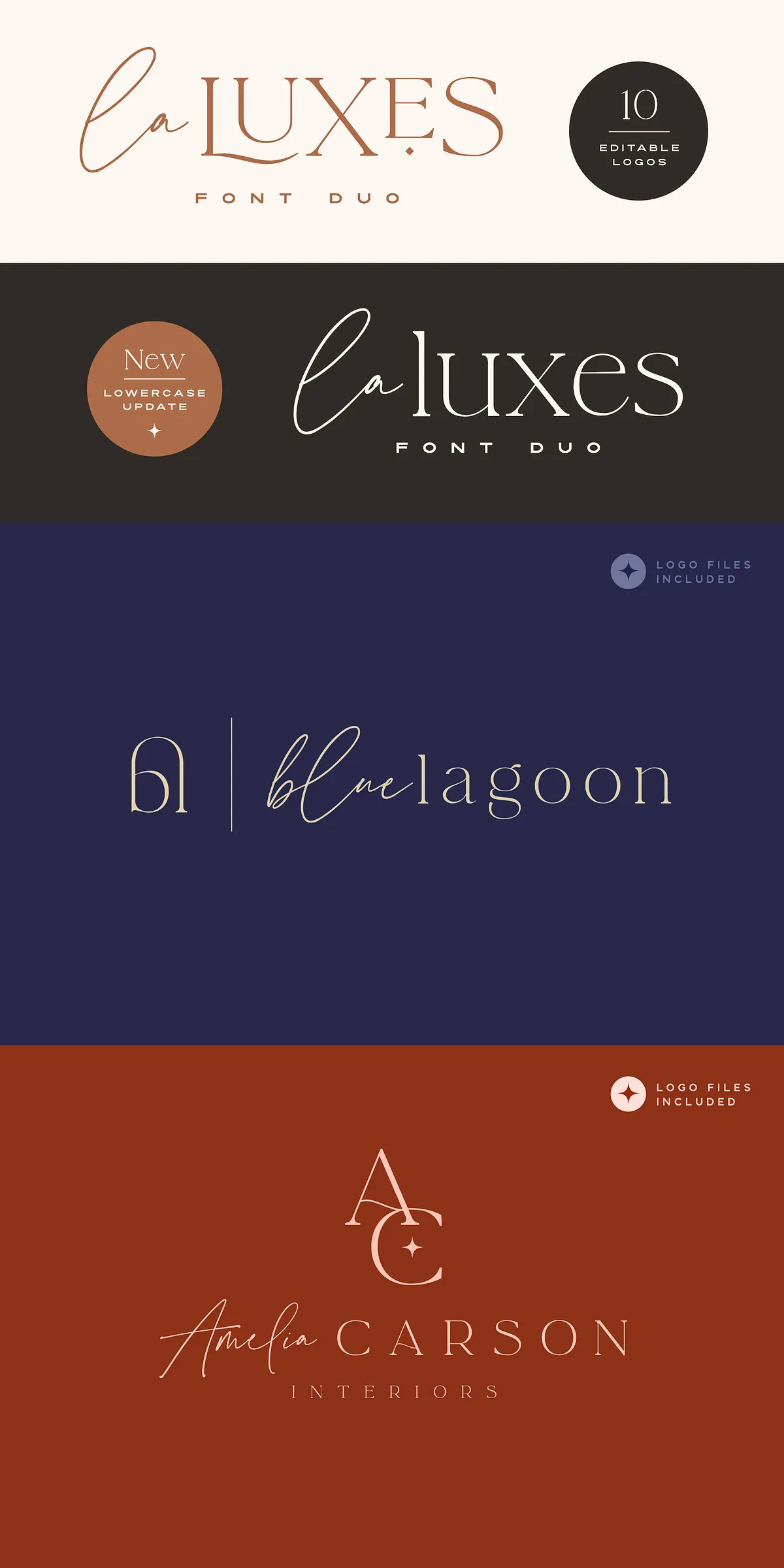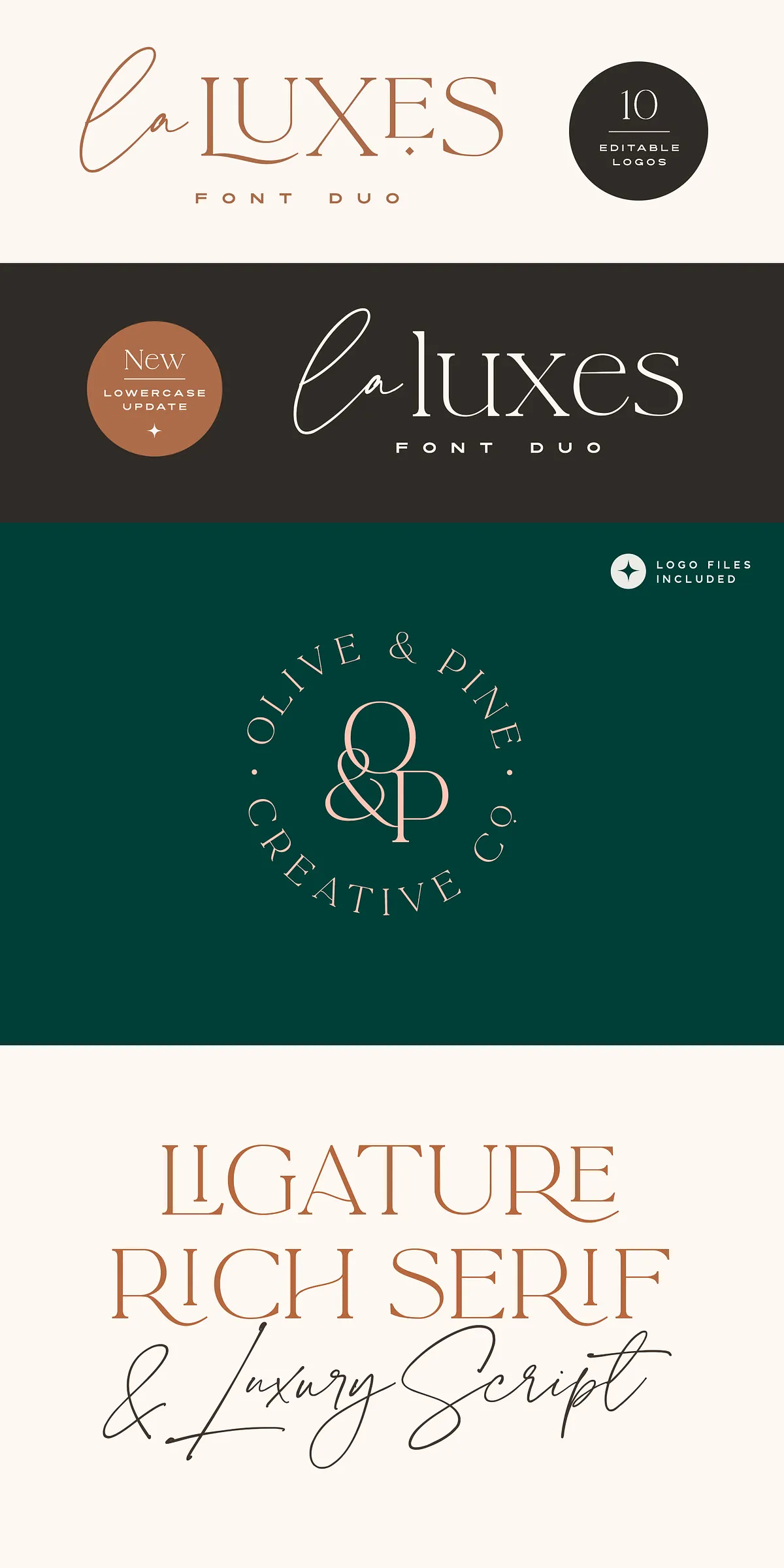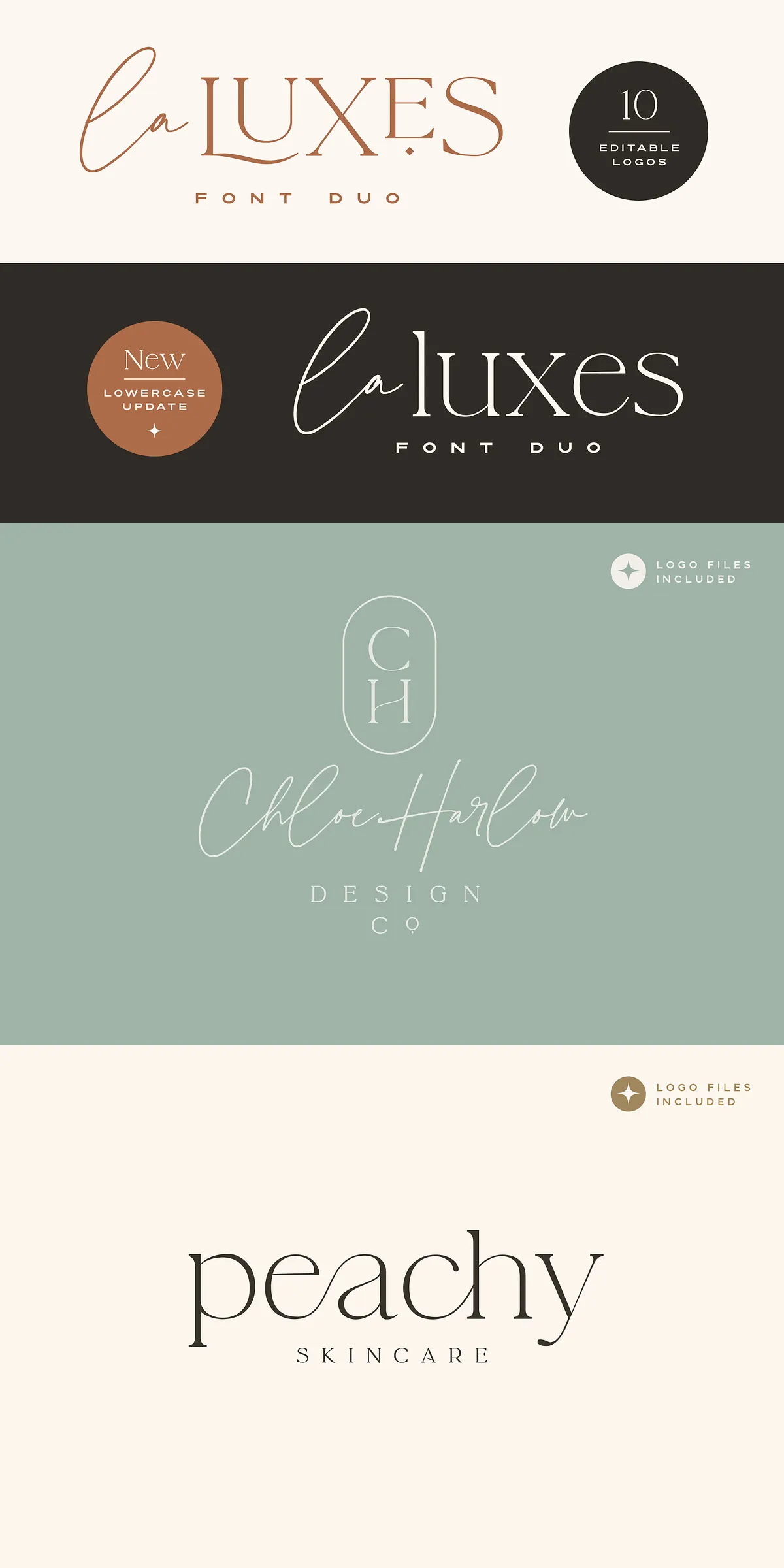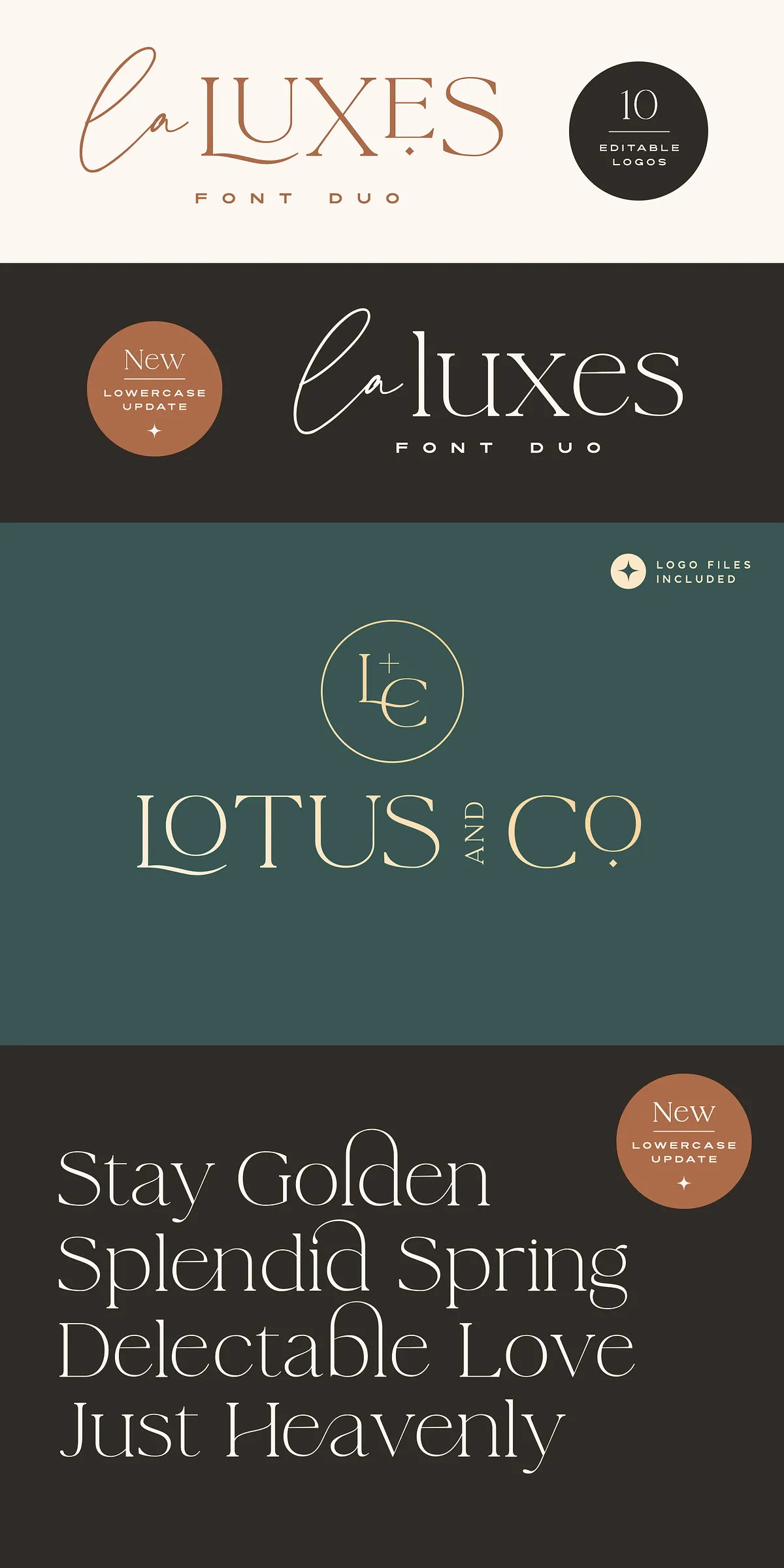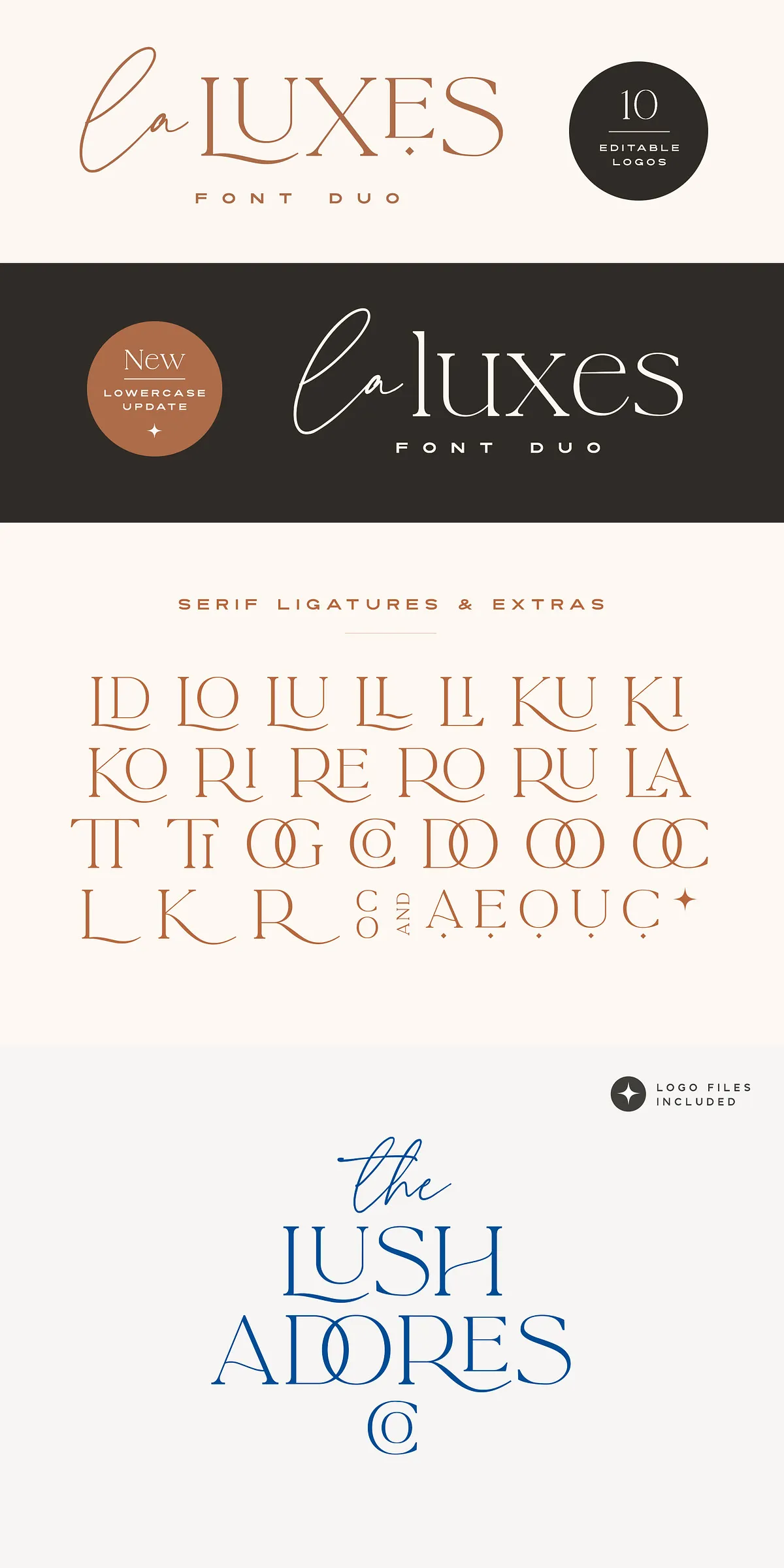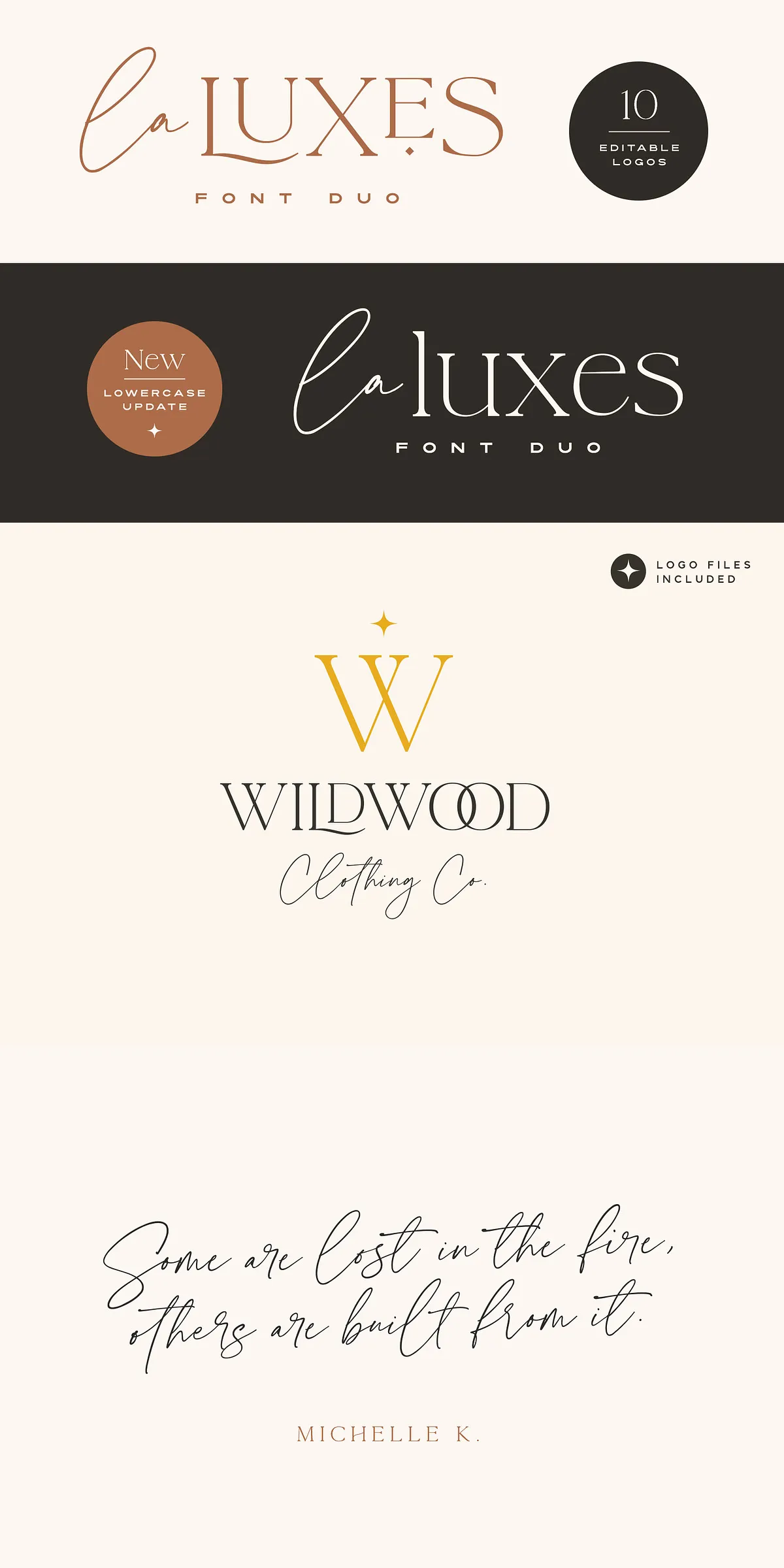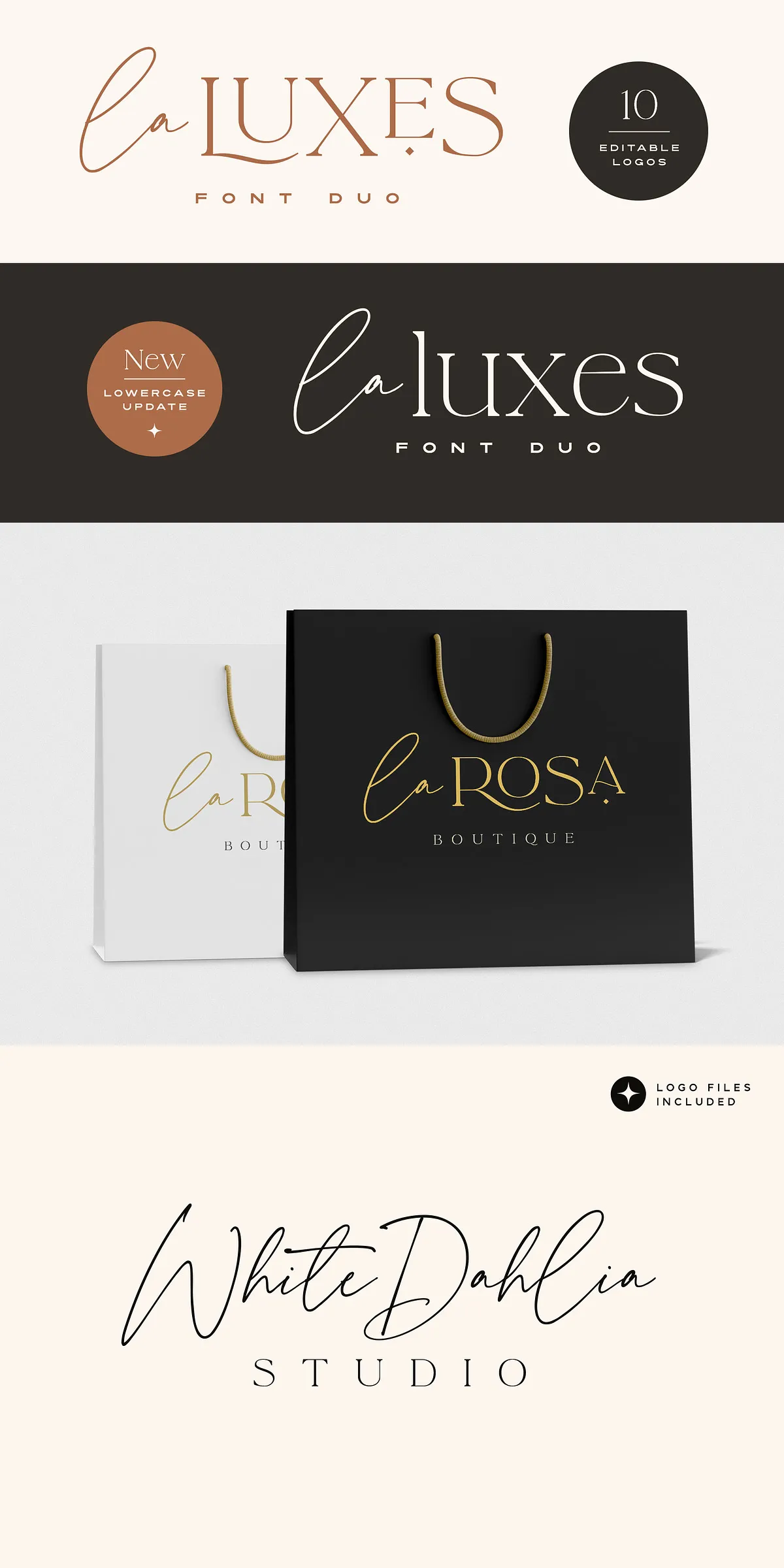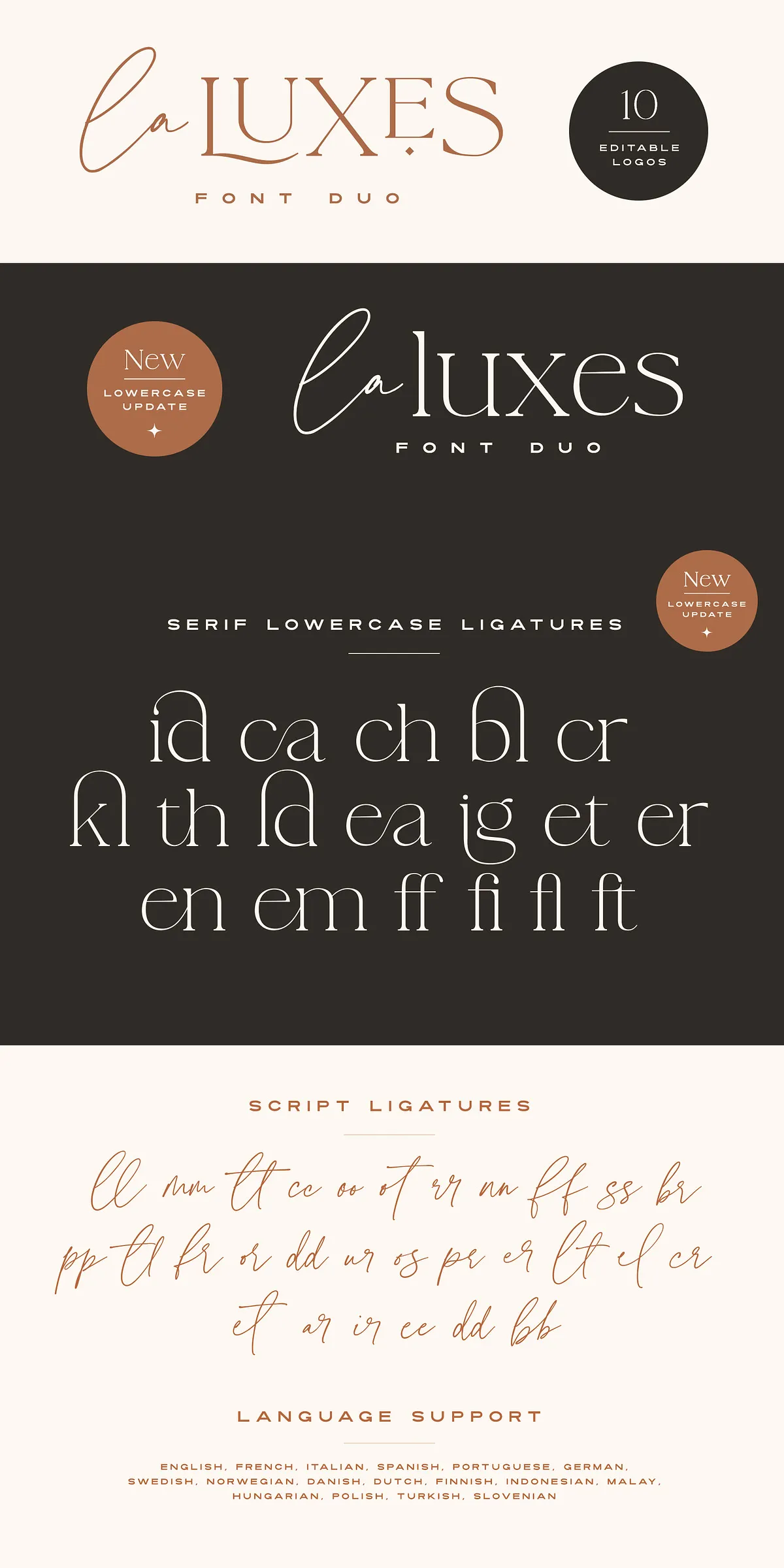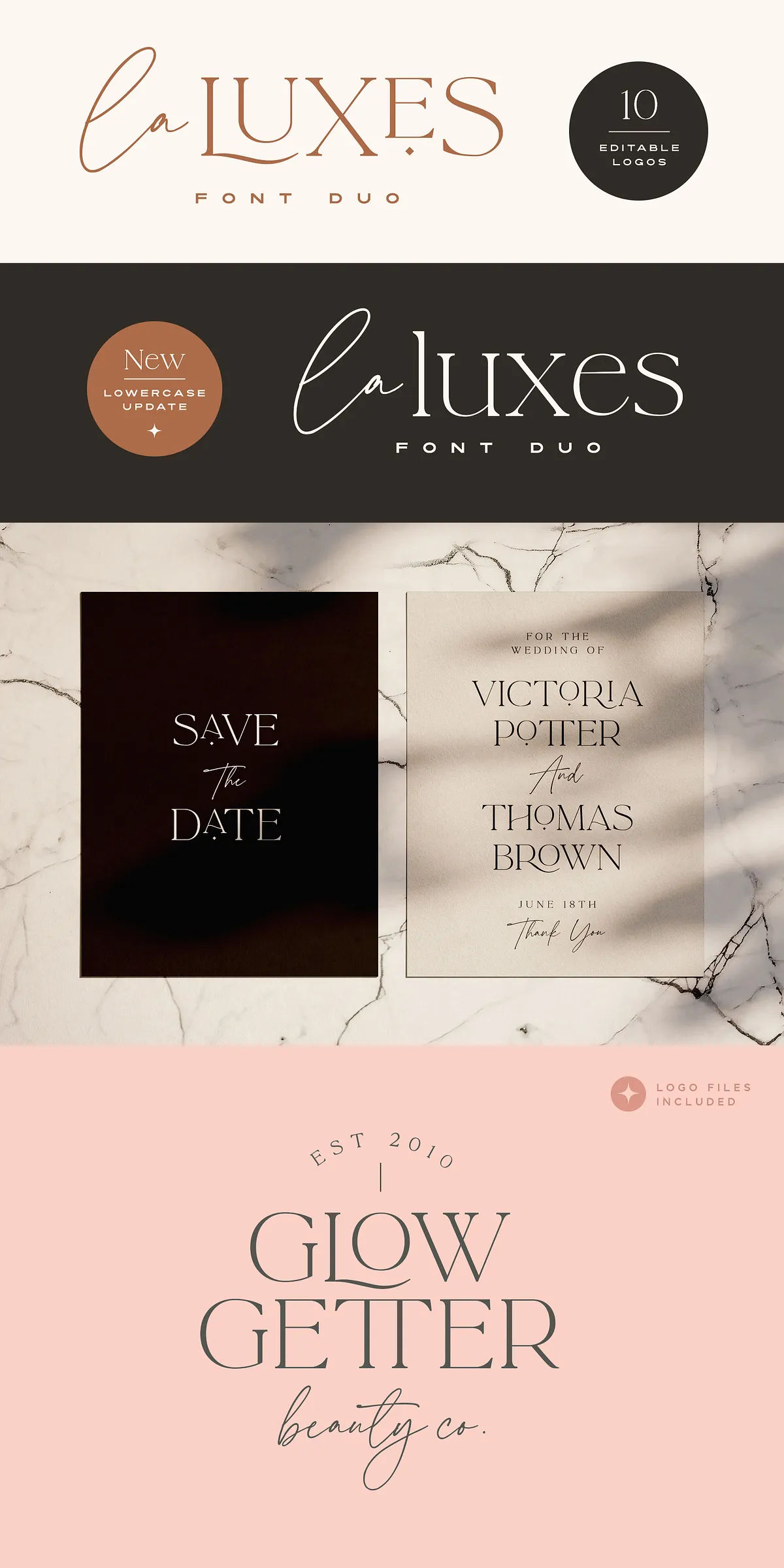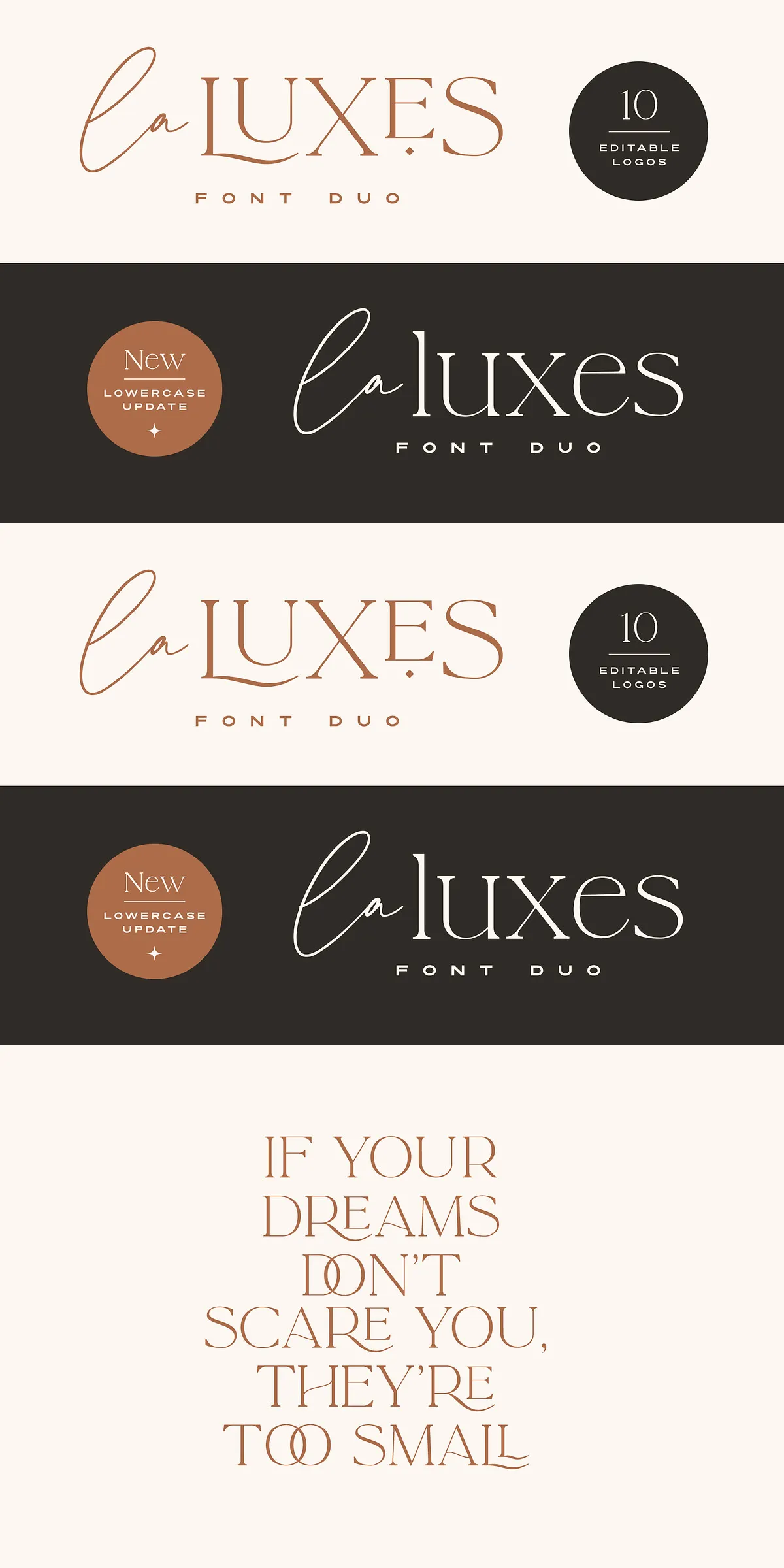
Step into the world of refined elegance with La Luxes — a meticulously crafted font duo that fuses the graceful flow of a hand-drawn script with the timeless sophistication of a ligature-rich serif. Perfect for high-end branding, editorial layouts, and luxury product design, La Luxes delivers a premium typographic experience that commands attention and exudes sophistication.
Masterfully Crafted Duo: Script + Serif for Maximum Impact
La Luxes isn’t just a pair of fonts — it’s a complete typographic ecosystem built for professionals who demand excellence. Each font is engineered with precision to work in harmony, creating seamless visual rhythm across your projects.
La Luxes Script: Elegant, Fluid, and Fully Customizable
This clean, hand-drawn script brings a sense of personal touch and artistry to every word. Featuring full uppercase and lowercase characters, punctuation, numerals, and an impressive set of 30 ligatures, the script flows naturally, reducing awkward spacing and enhancing readability while maintaining a custom, artisanal feel. Whether used in luxury logos, wedding invitations, or high-fashion branding, the script adds a refined, human touch that no mechanical font can replicate.
La Luxes Serif: Modern, Stylish, and Rich in Detail
Complementing the script perfectly, the La Luxes Serif is a powerful all-caps serif that redefines modern elegance. It includes both uppercase and new lowercase characters, ensuring versatile use across headings, body text, and display settings. With 38 ligatures and 11 unique special characters, including stylized ‘AND’ and ‘CO’ icons, this serif gives you endless layout options for premium brand identities and editorial design.
10 Premium Logo Templates — Design in Minutes
Accessing Advanced Features with Ease
- Stylistic Alternates: Activate this feature to access raised small caps (A, E, O, U, C) and elongated tail variants (L, K, R,). These subtle details elevate the visual hierarchy and add depth to your design.
- Special Characters: The star icon (
*) and stylized ‘AND’/‘CO’ symbols are only accessible via the Glyphs panel — perfect for luxury branding where symbolism matters.
This makes La Luxes ideal for brands expanding globally, agencies managing multilingual campaigns, and designers creating content for diverse audiences without compromising typographic integrity.